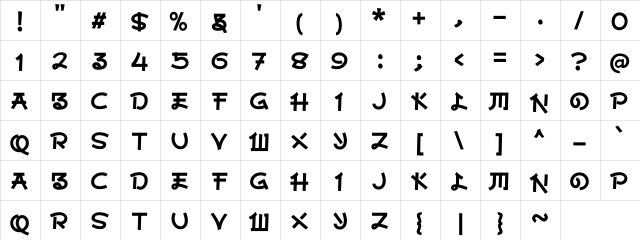
a Arigatou Gozaimasu Regular
| Designer | Wahyu Eka Prasetya |
Design Context for a Arigatou Gozaimasu Typeface
a Arigatou Gozaimasu is a composed and adaptable typeface that performs quietly and consistently across a wide range of design contexts.